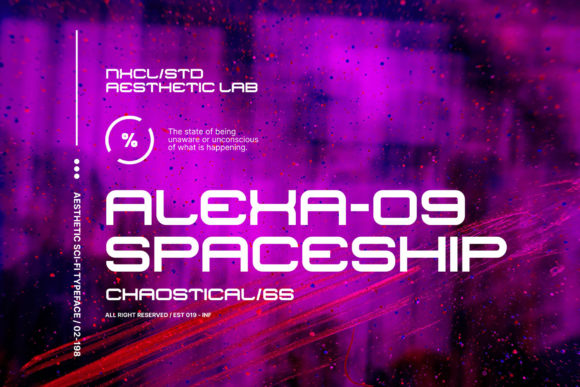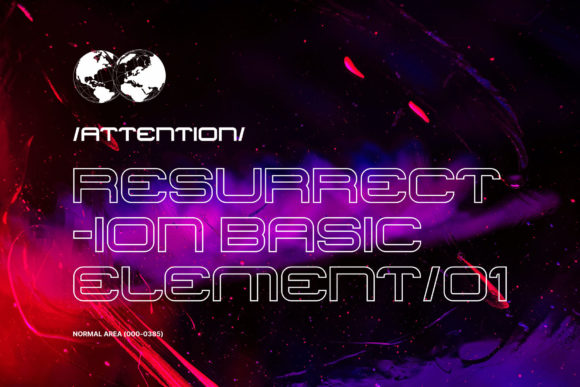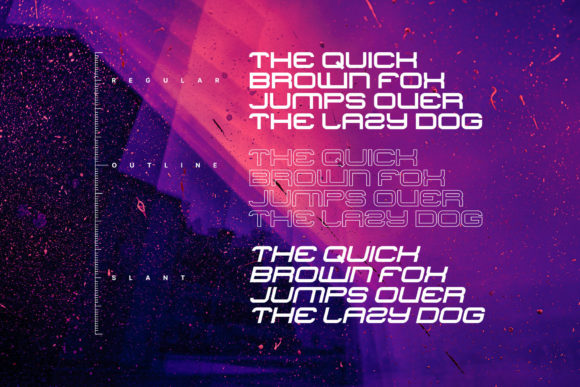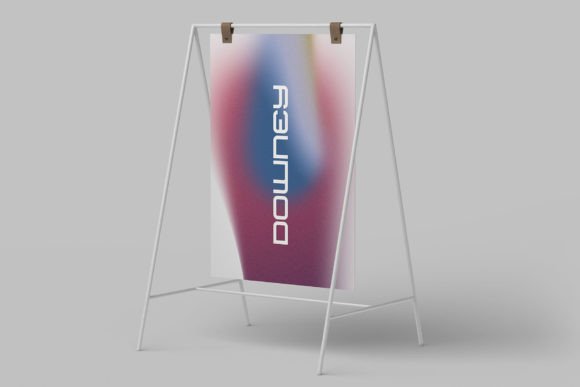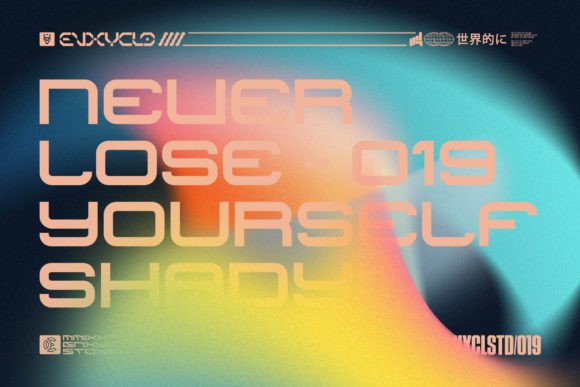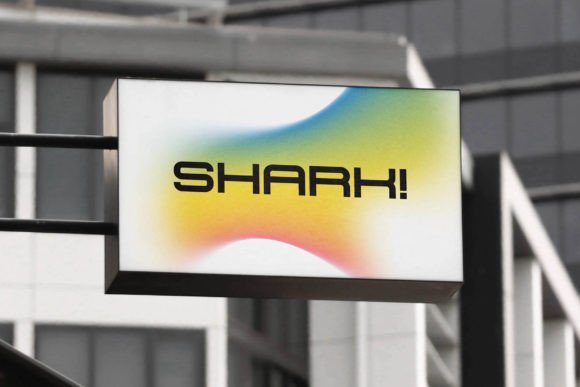
Introduction to Kroigs Font
Imagine you’re brainstorming ideas for a new creative project, and suddenly, the perfect font pops into your mind. It’s sleek, modern, and futuristic – the kind of design that screams innovation and sets your project apart from the rest. This is exactly what the Kroigs Font does. With its unique blend of style and sophistication, Kroigs Font is the ultimate design resource for creatives looking to take their projects to the next level.
Whether you’re working on a magazine cover, a billboard, or a website, Kroigs Font is the perfect tool to add that extra oomph to your design. Its high-quality design and transparent background make it easy to use and customize, giving you complete control over your creative vision. And the best part? You can download Kroigs Font for free, making it an invaluable resource for designers on a budget.
Key Features of Kroigs Font
- High-quality, professional font designed for creative projects, ideal as a design resource for various applications.
- Unique, modern design with a transparent background, making it versatile for use on various backgrounds and designs.
- Includes a wide range of characters, including uppercase and lowercase letters, numbers, and special characters.
- Designed for use in various creative projects, including logos, graphics, and typography-based designs.
Honest Review: Kroigs Font
As a designer, I’m always on the lookout for reliable design resources to enhance my creative projects. Recently, I came across the Kroigs Font, and I’m excited to share my honest review with you.
What works well: ✨ The Kroigs Font is incredibly versatile, with a clean and modern aesthetic that can be used for a wide range of design projects. The font is highly legible, making it perfect for body text, headings, and even display typography. The transparent background is a nice touch, allowing me to easily layer the font over images and backgrounds.
What could be improved: ⚠️ One potential limitation of the Kroigs Font is its limited character set. While it’s great for general use, it may not be suitable for projects that require a wide range of special characters or accents. Additionally, the font may not be as customizable as some other options, which could be a drawback for designers who like to fine-tune their typography.
Overall impression: I’m thoroughly impressed with the Kroigs Font, and I’d highly recommend it to designers looking for a high-quality, free download to add to their design arsenal. Its modern aesthetic and transparent background make it a great addition to any creative project.
- High quality and versatile font
- Perfect for body text, headings, and display typography
- Limited character set may be a limitation for some projects
Introduction to Kroigs Font
Kroigs Font is a high-quality design resource ideal for creative projects. Its transparent background makes it perfect for overlaying text or graphics on images.
Use Kroigs Font for headings, titles, or other text elements where a high-quality font is needed.
Common Use Cases for Kroigs Font
Kroigs Font is ideal for:
- Designing marketing materials, such as brochures or flyers.
- Creating social media graphics or posts.
- Designing presentations or reports.
Does Kroigs Font have a transparent background?
Yes, Kroigs Font has a transparent background, making it perfect for use on any background or design element. This feature allows for seamless integration and flexibility in your designs. You can easily combine it with other design elements to create visually appealing and professional-looking graphics.